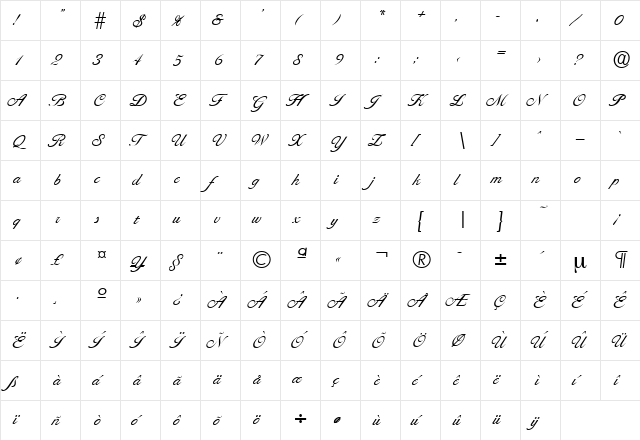
Ballantines-Serial-Light Regular
Design Context for Ballantines-Serial-Light Typeface
Ballantines-Serial-Light is a composed and adaptable typeface that performs quietly and consistently across a wide range of design contexts. Its slender proportions lend an understated elegance to any composition.